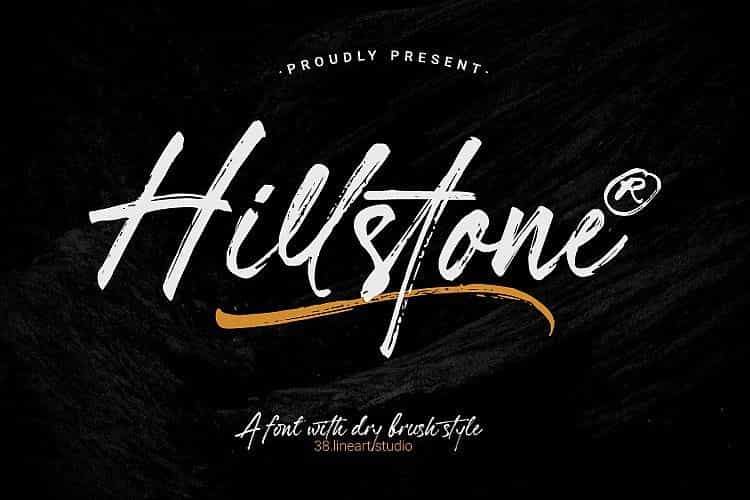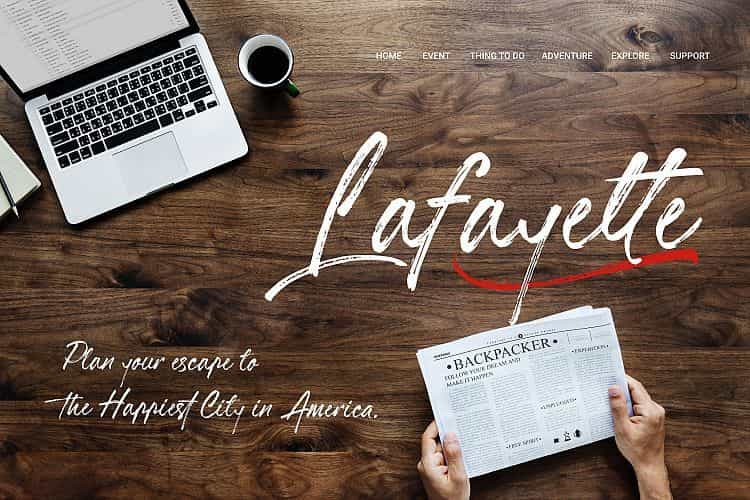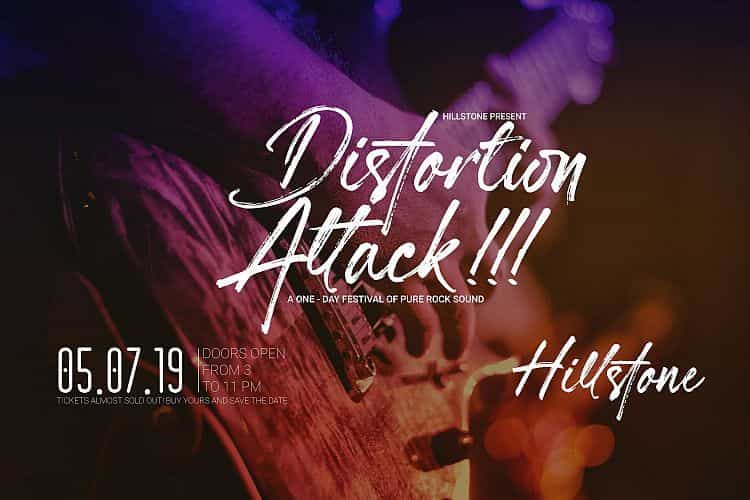
Hillstone Brush Font is a font with dry brush style, it’s actually a perfect brush font with a rough texture, a modern method to make designs, handmade with an uneven baseline. Hillstone designed by 38-lineart. It’s a handmade font with rough texture, the process of making each letter done with scratched with strong and fast stroke. on paper while sweeping the paper to get the rough texture.